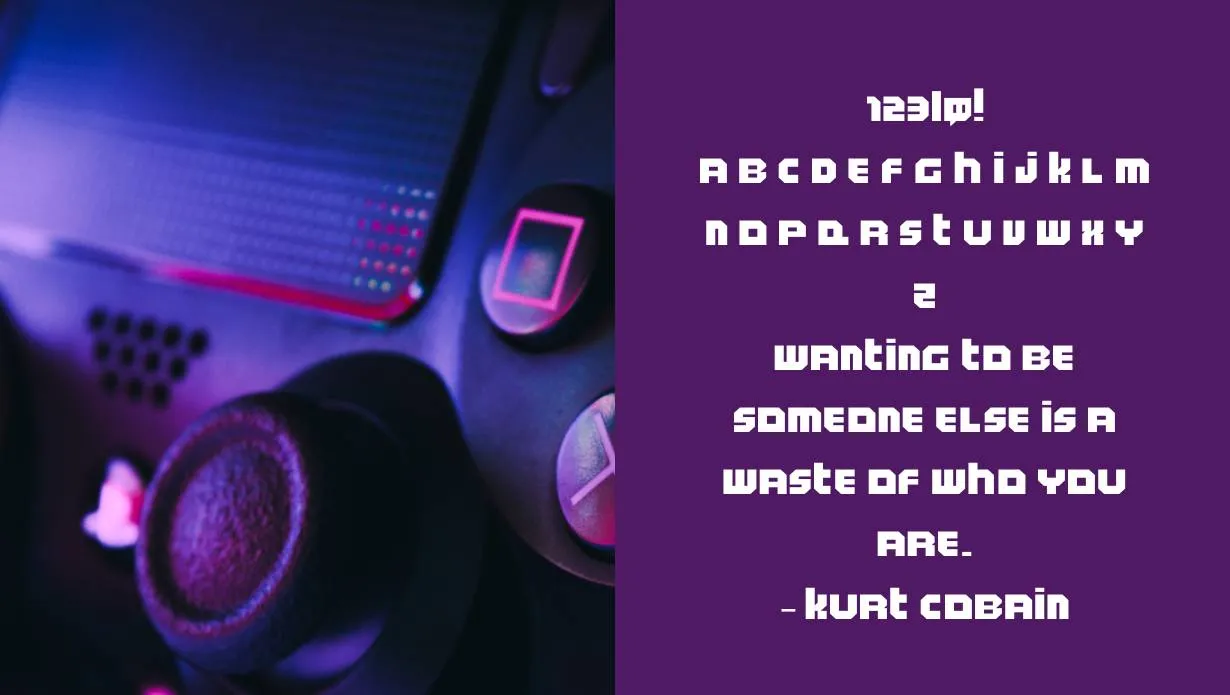
Are you looking for a unique fancy typeface that also gives a display feel to your design, so we presenting a Twitch Logo Font. Twitch is an American video live streaming service that focuses on video game live streaming, including broadcasts of esports competitions. This font is available in only one regular weight including uppercase, lowercase, punctuation, and numbers.
The typeface includes a wide range of characters, including support for over 100 languages. This glyph has been designed with a large x-height and wide proportions, making it easy to read at small sizes.